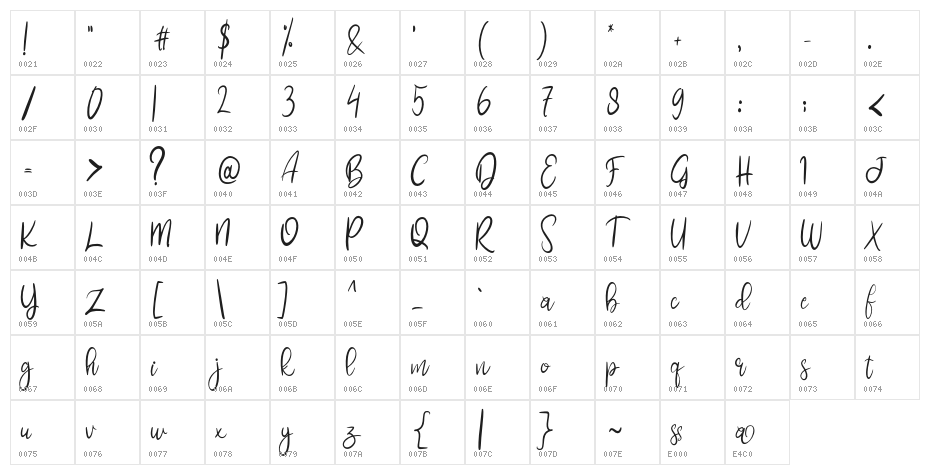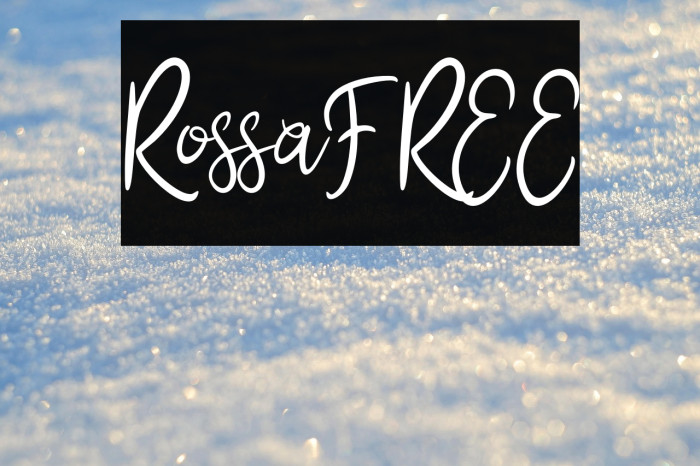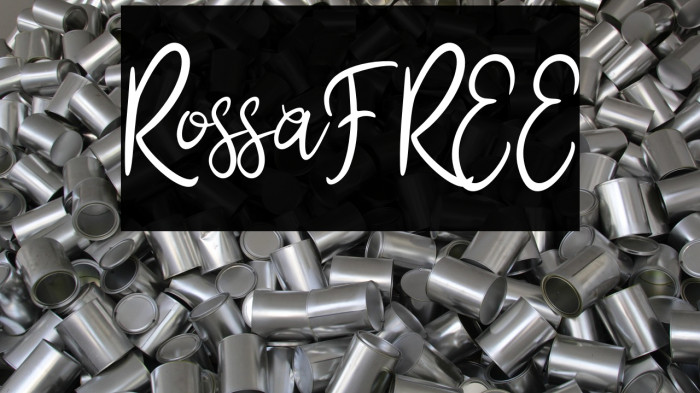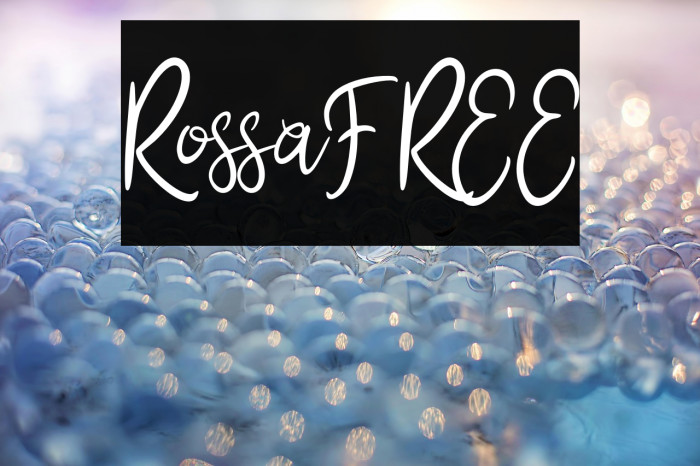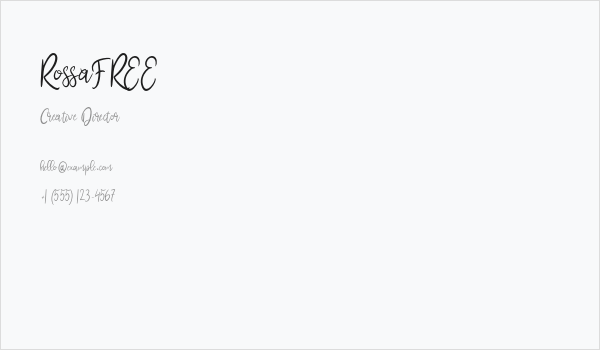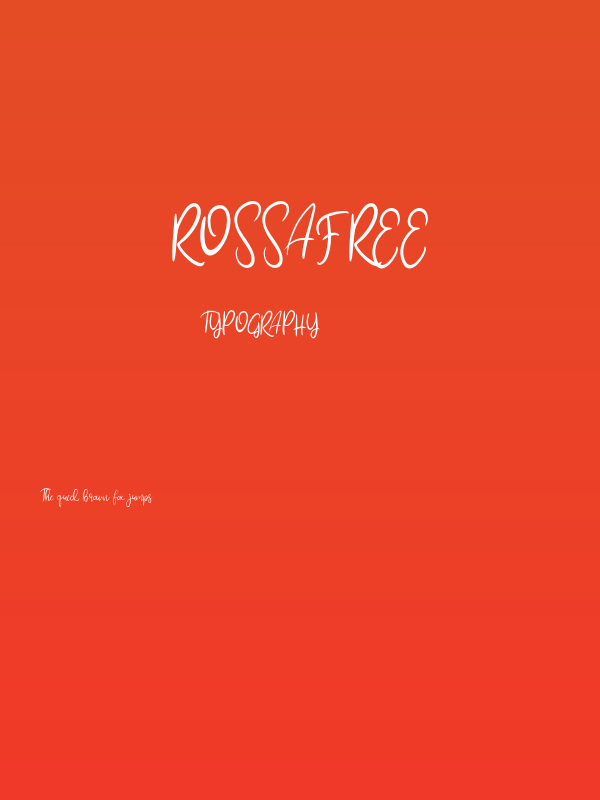
RossaFREE Font
RossaFREE Description
This font exudes a lively and expressive character, with its flowing, handwritten style. The letters are crafted with a natural, cursive flair, featuring smooth curves and varying stroke widths that add a dynamic quality to the text. The uppercase letters are bold and prominent, while the lowercase letters maintain a graceful continuity. Numbers and special characters are designed to match the overall aesthetic, ensuring a cohesive look. The font's playful yet elegant appearance makes it suitable for creative and personal projects.
| Use Case | Logos, Invitations, Personal branding |
| Proposed Projects | Ideal for greeting cards, invitations, personal branding, and creative projects that require a personal touch. |